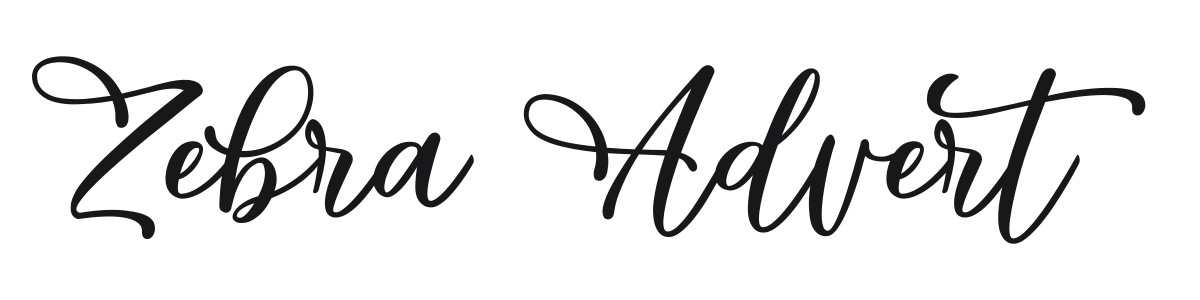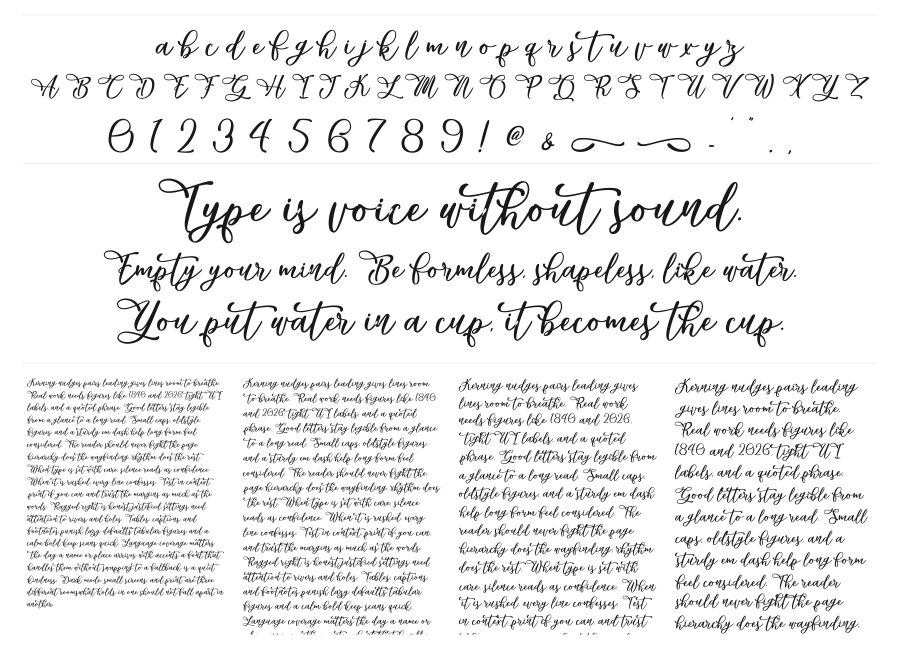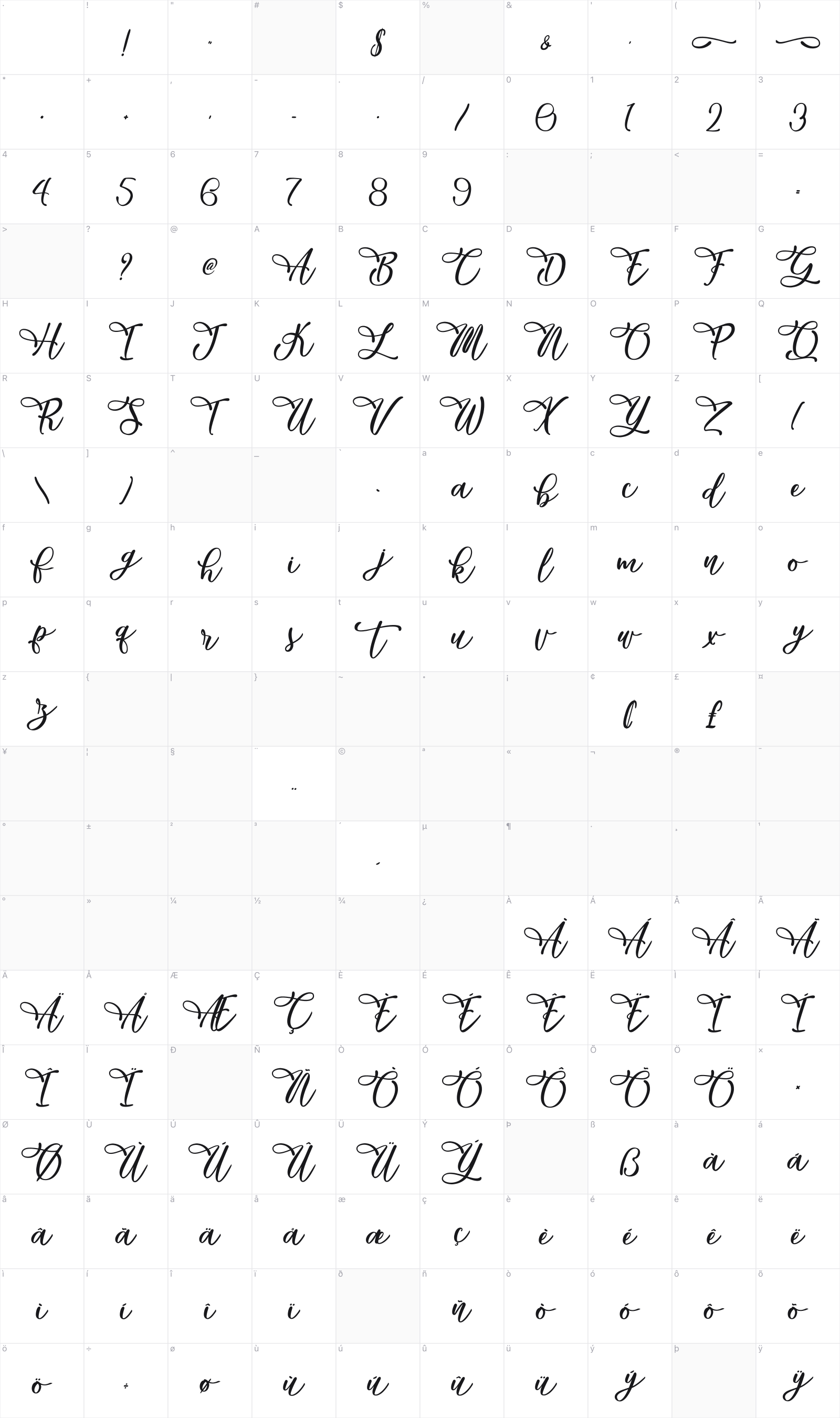
Zebra Advert
Zebra Advert is a contemporary brush script with generous loops, sweeping ascenders, and high stroke contrast between thick downstrokes and delicate hairlines. The bouncing baseline and loose calligraphic rhythm give it an authentic hand-lettered quality. Swash alternates are accessible by typing parentheses before or after a word.